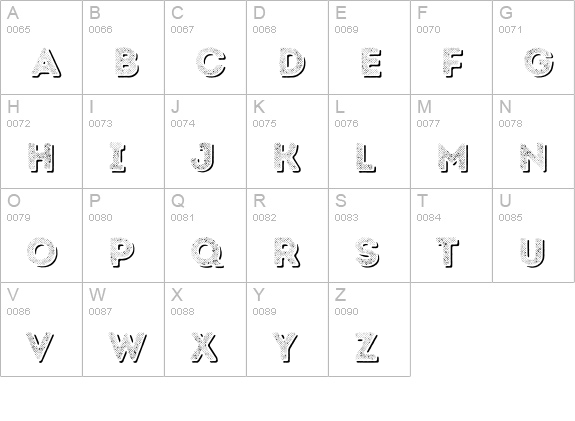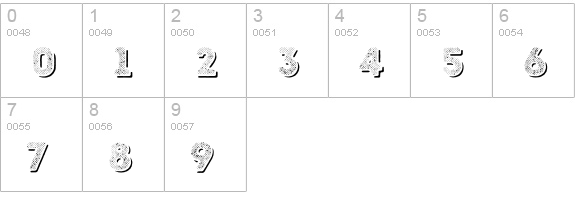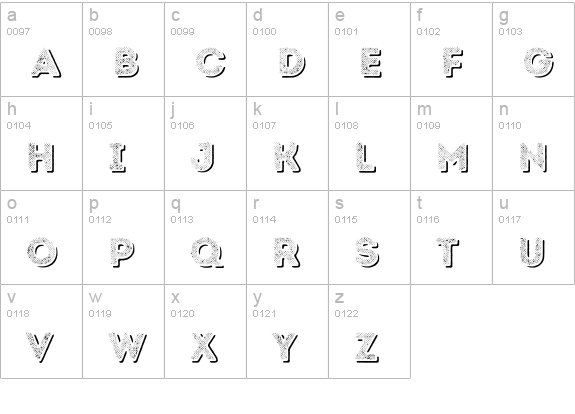
Intro Rust H2 Fill Shade is a unique and eye-catching font that adds a touch of creativity and sophistication to any design project. The intricate details of this font make it stand out from the rest, giving a modern and edgy look to your work. The fill shade effect adds depth and dimension, creating a bold statement that captures attention. What makes Intro Rust H2 Fill Shade even more appealing is that it is available for free download at FontsMarket.com. This means that you can easily access this stylish font and use it in your projects without any cost. Whether you are working on branding, advertising, packaging, or any other design project, Intro Rust H2 Fill Shade is sure to make a lasting impression. Download it today and elevate your designs with this stunning font.